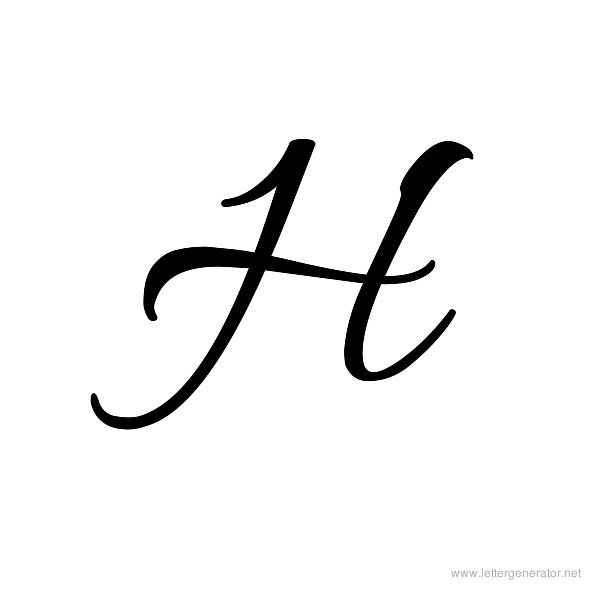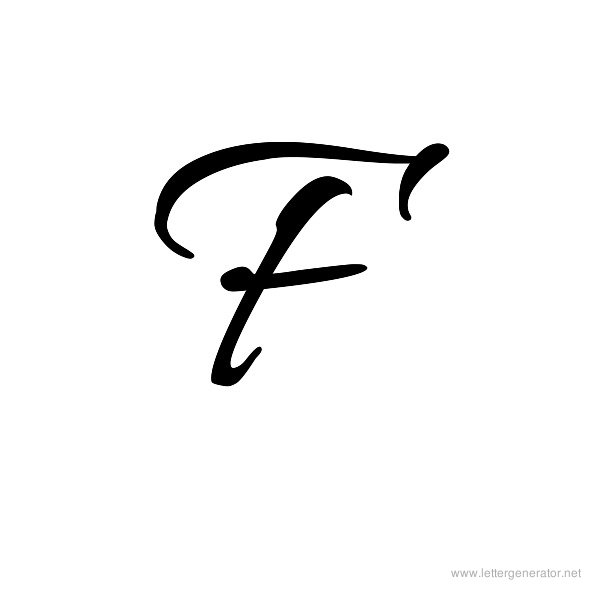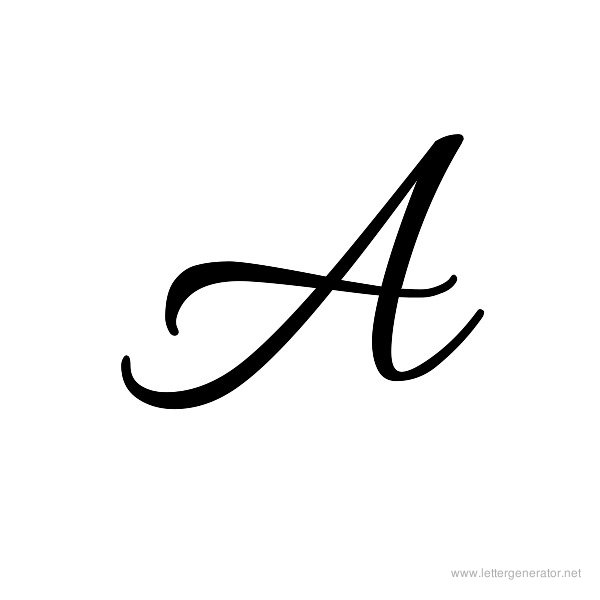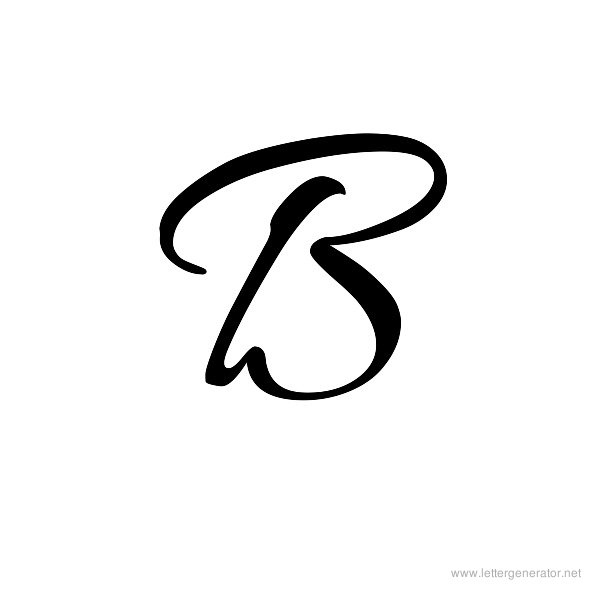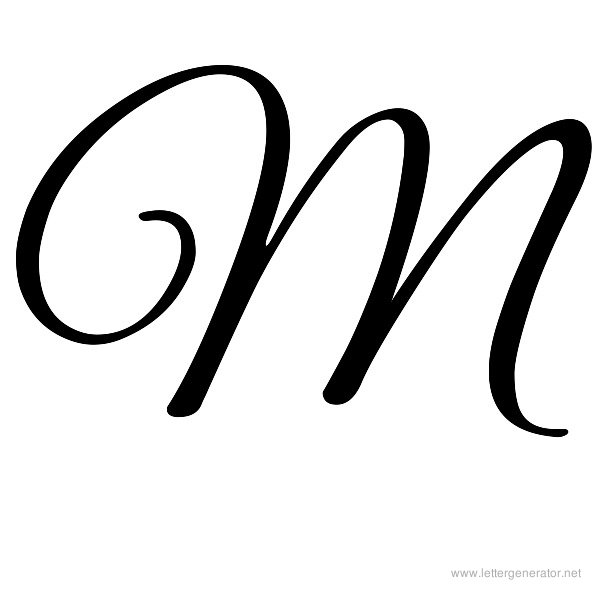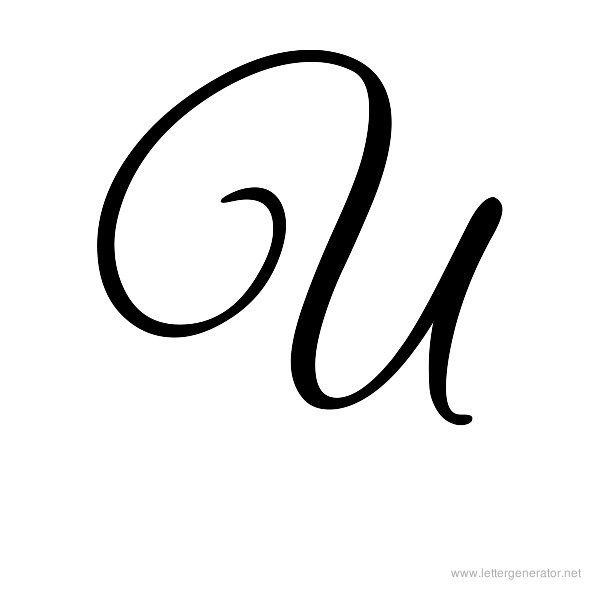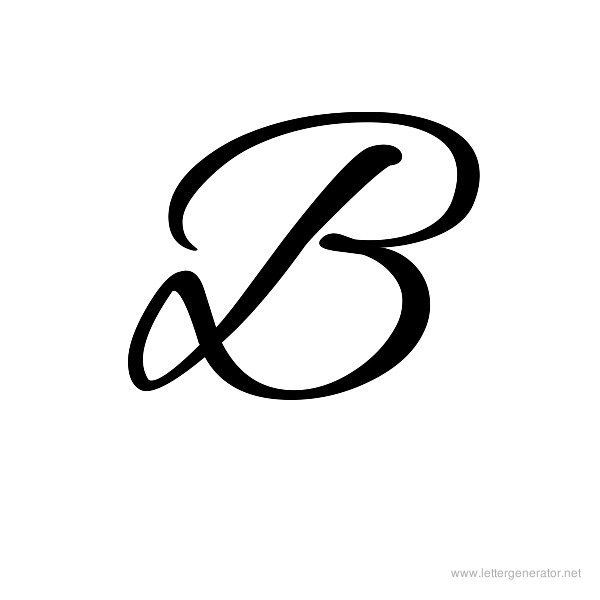
calligraphy cursive fonts alphabet letters
The height of calligraphy was reached in the middle age where monks developed the narrow writing style called gothic allowing more words to fit on a single line as paper was expensive at the time.
Calligraphy cursive fonts alphabet letters. Cursive font handwriting text generator. These cursive calligraphy are slightly more rounded from the english calligraphythe styles of this calligraphy alphabet is very cursive in nature with smooth lines and neat closings at the ends. Many people like calligraphy to be very cursive with beautiful closings on each letter and this calligraphy alphabet is. Illustration about lettering design modern flourish hand collection latin character sign font decoration quill drawn element.
Calligraphy is an ancient writing technique using flat edged pens to create artistic lettering using thick and thin lines depending on the direction of the stroke. Cursive fonts simply emulate cursive handwriting in which letters are usually connected in a slanted and flowing manner. Free printable cursive calligraphy alphabet styles from letters a to l. Cursive fonts mimic the style of human penmanship where the letters flow together.
Letters may be joined or unjoined. For more artistic styles you will want to look at calligraphy or hand lettering. These cursive calligraphy are slightly more roundered from the english calligraphythe styles of this calligraphy alphabet is very cursive in nature with smooth lines and neat closings at the ends. Free printable cursive calligraphy alphabet styles from letters a to l.
We have been using the cursive fonts for a long time and it continues to be one of the most widely used font types. The cursive handwriting style is functional and intended to be used for everyday writing. We have 397 free calligraphy cursive fonts to offer for direct downloading 1001 fonts is your favorite site for free fonts since 2001. Many people like calligraphy to be very cursive with beautiful closings on each letter and this calligraphy alphabet is.